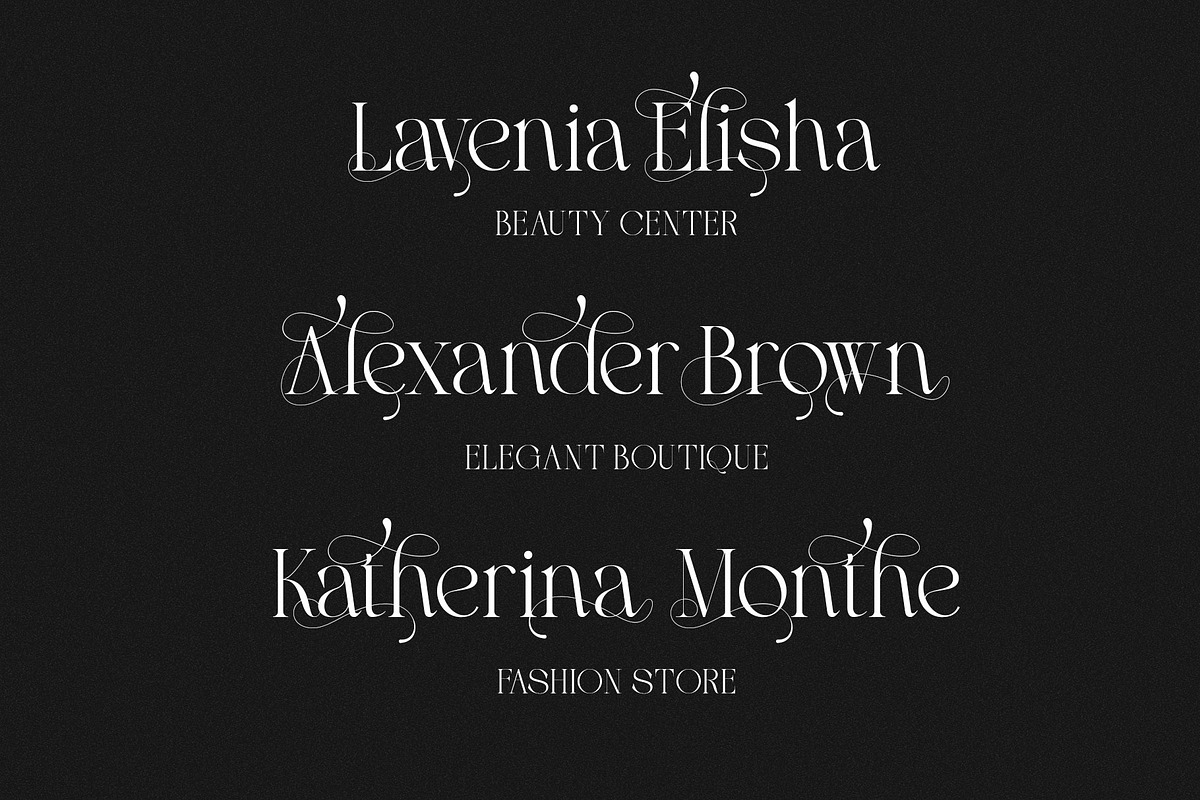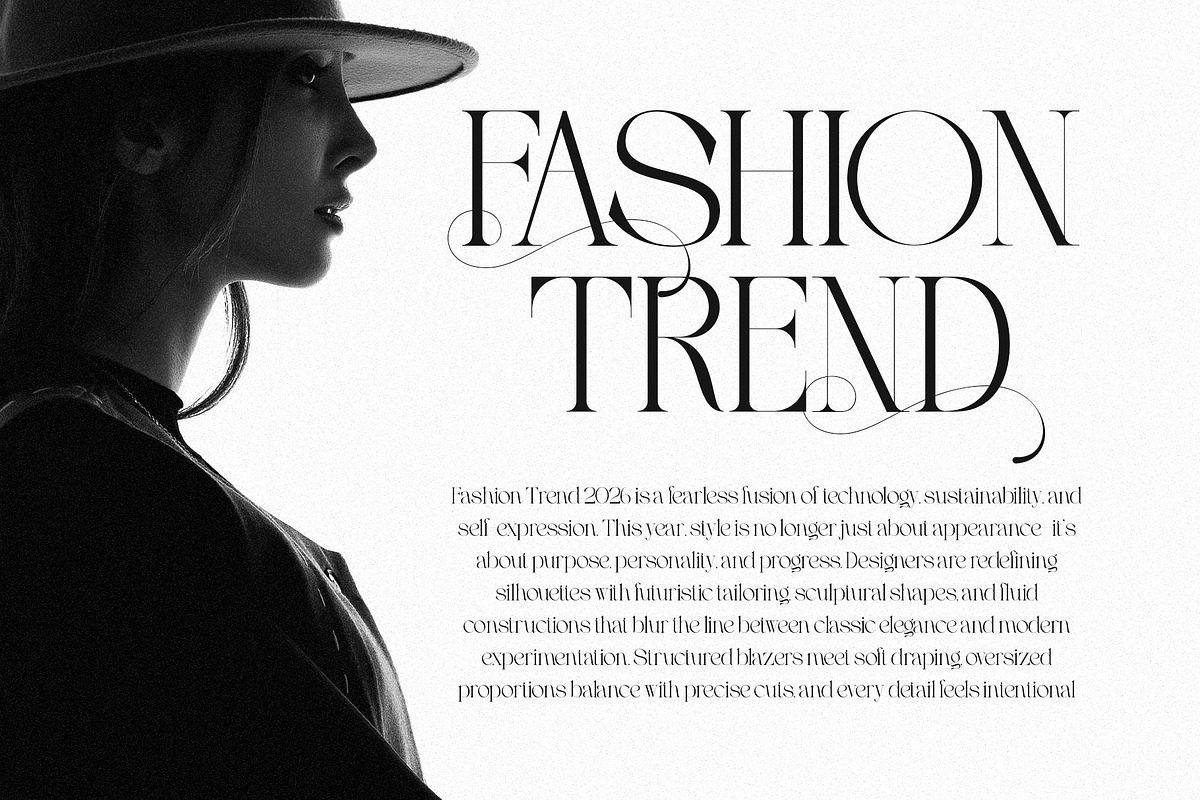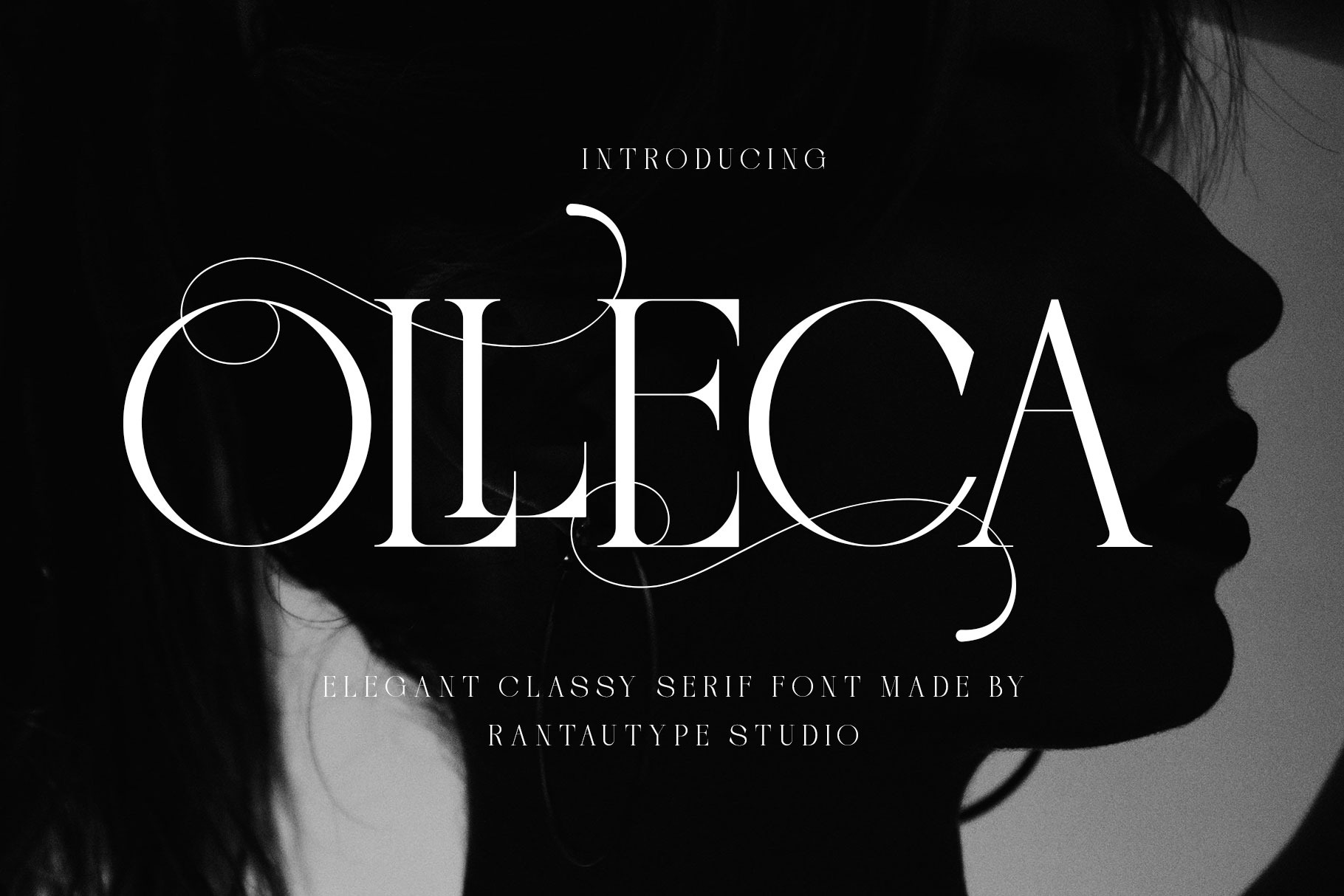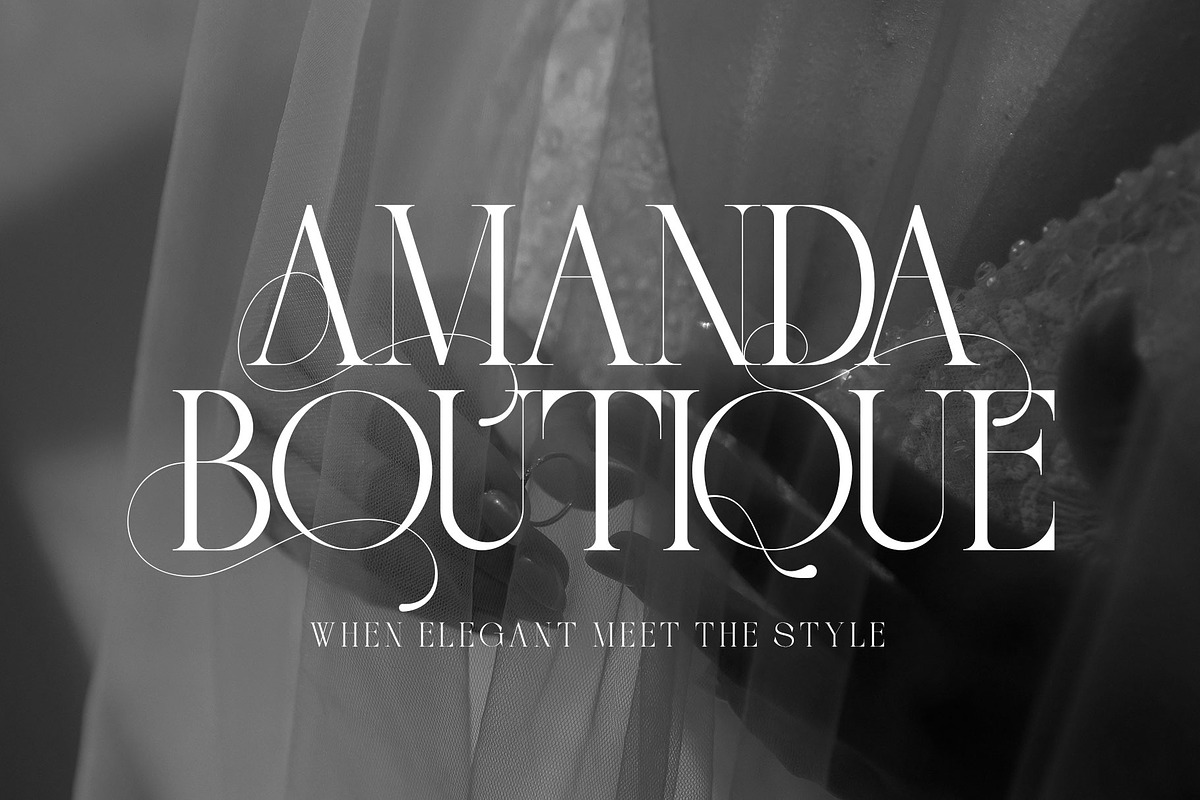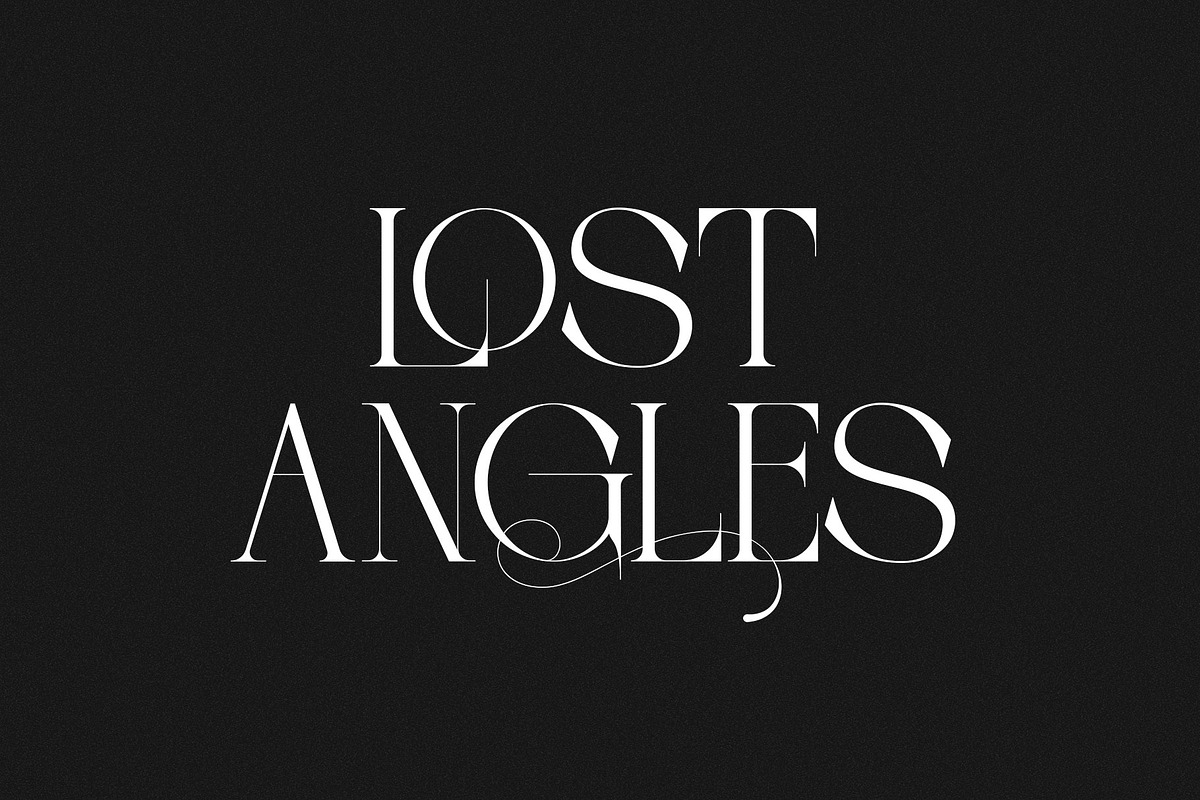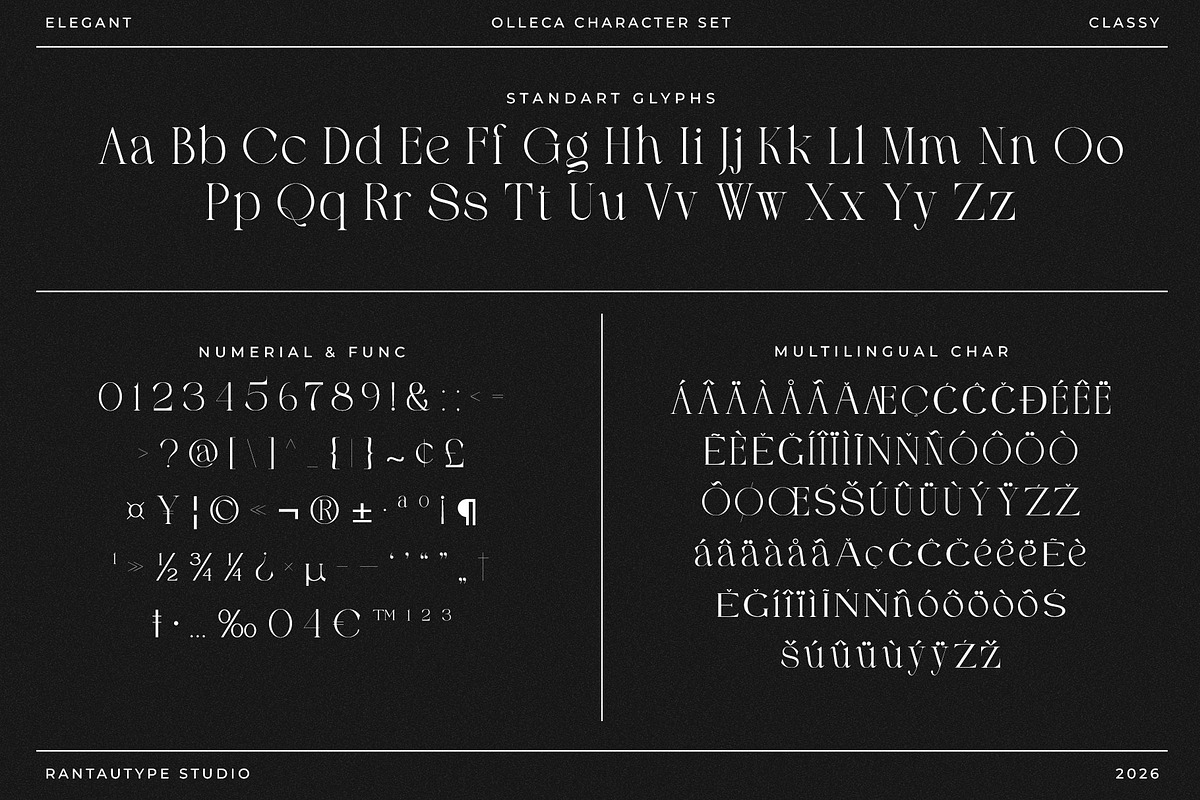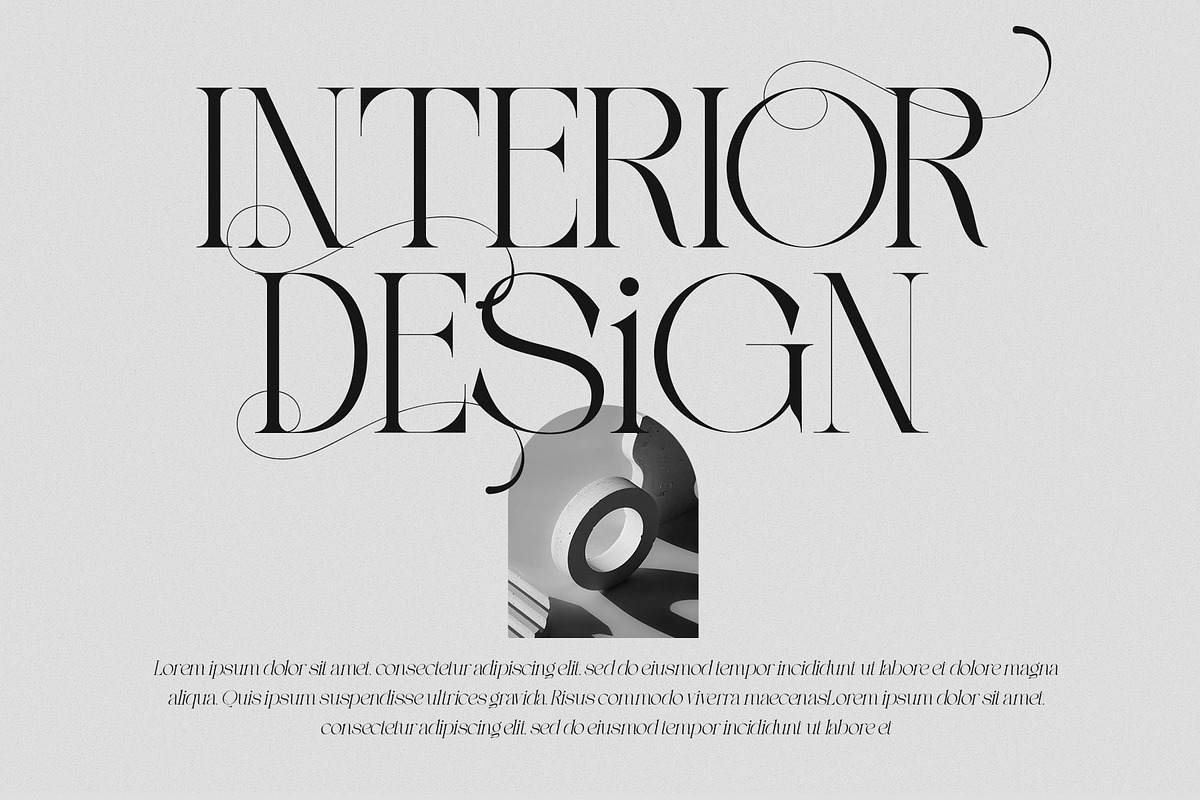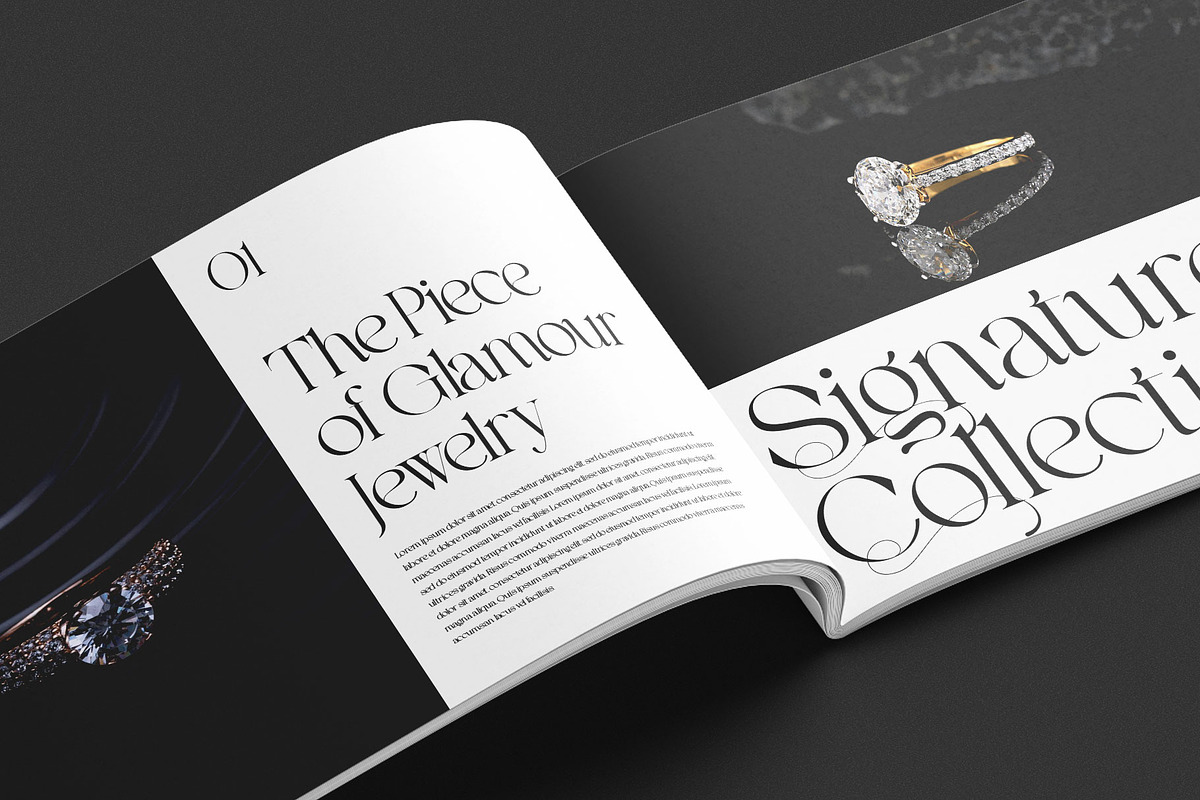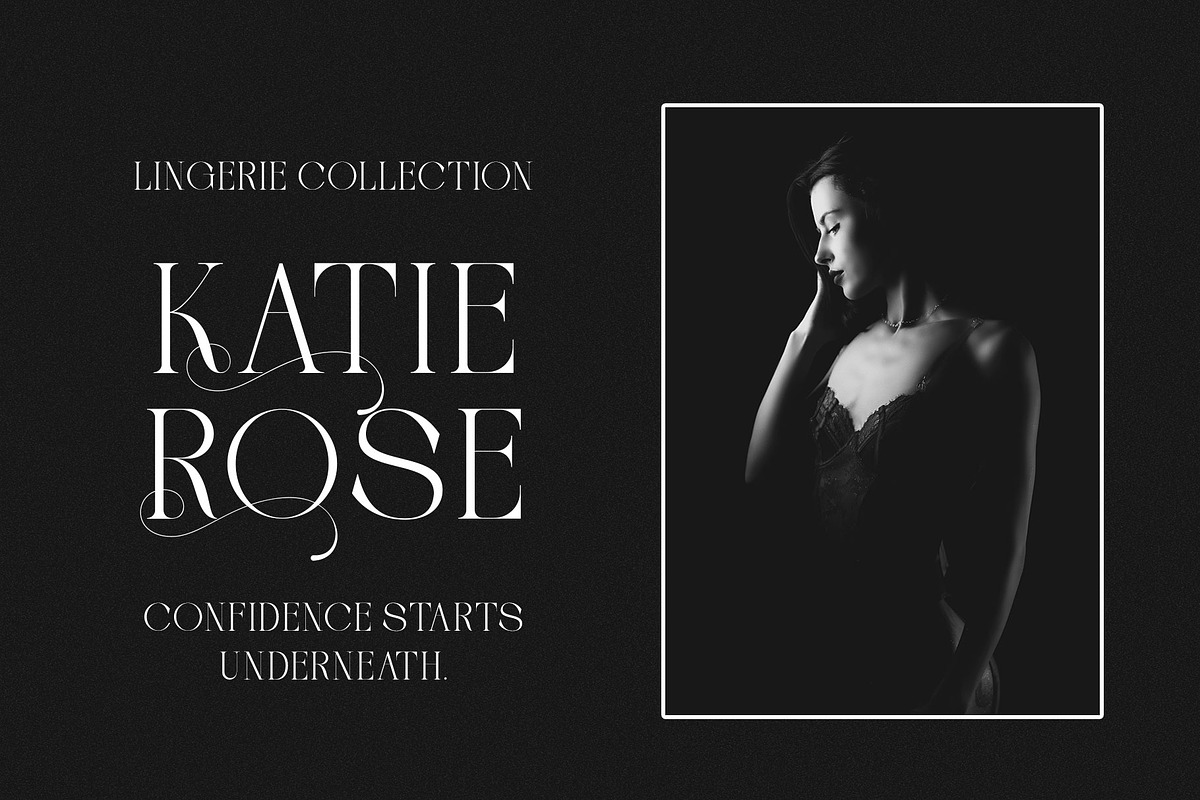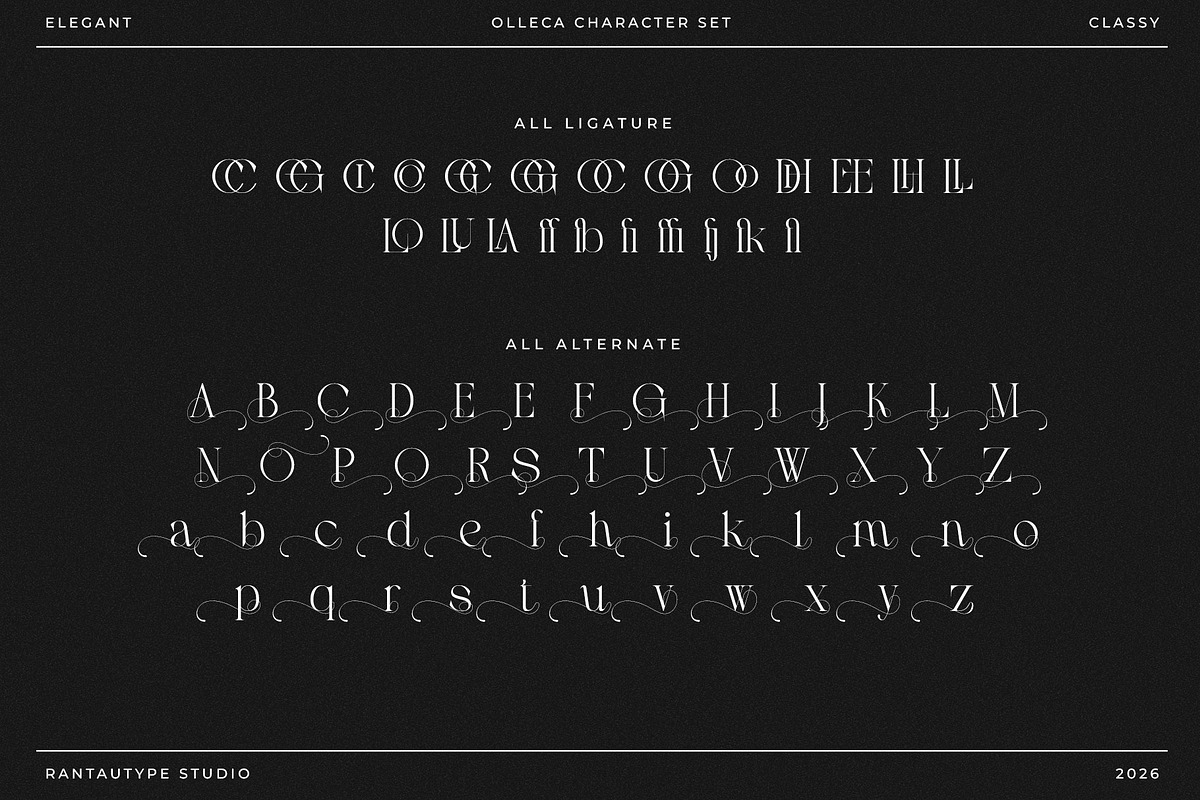
Olleca Elegant Classy Serif Font
Olleca is elegant serif font embrace grace and minimalis shape.Olleca is a perfectly choice for any creative endeavor, creating, modern, lifestyle design such as logotype, title, cover, branding, invitations, wedding designs, display and magazine, social media posts, advertisements, printed quotes, product packaging, corporate brand, product designs, labels, photography, watermarks, special events and any other project with luxury touch.
- Alternate and ligature